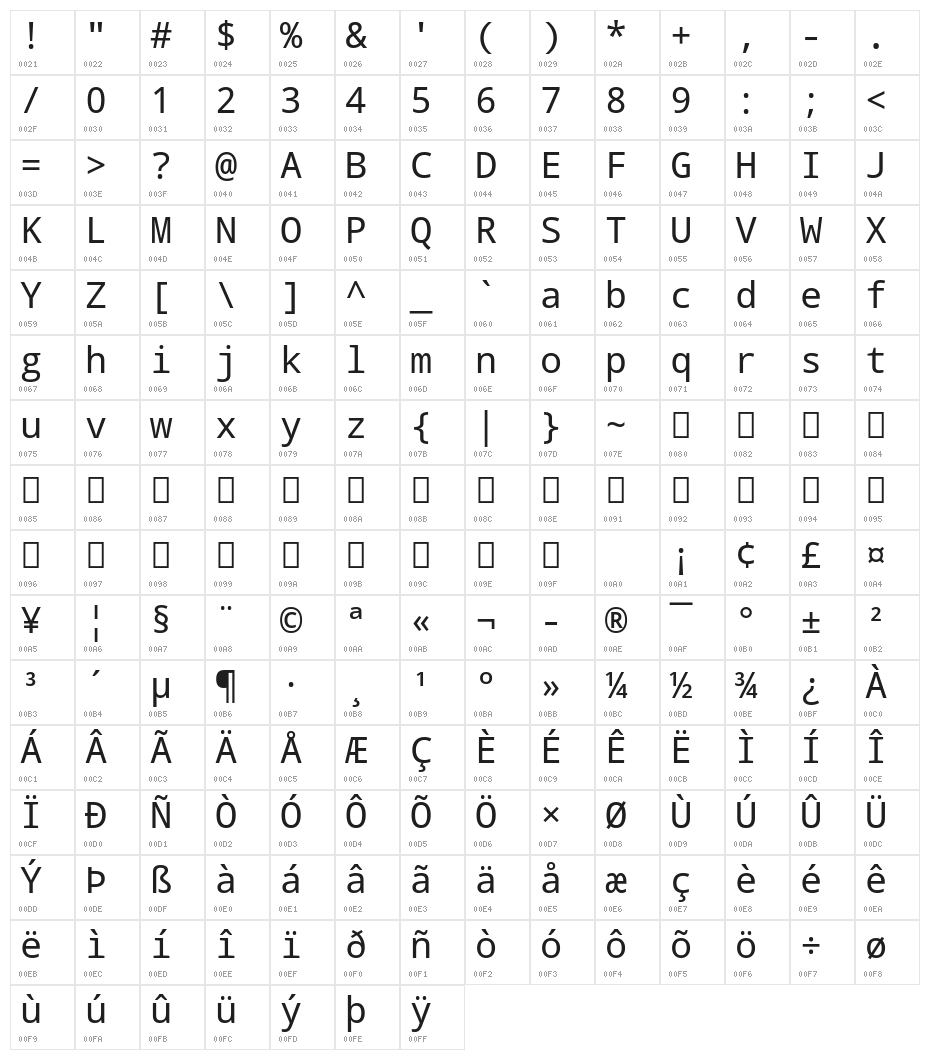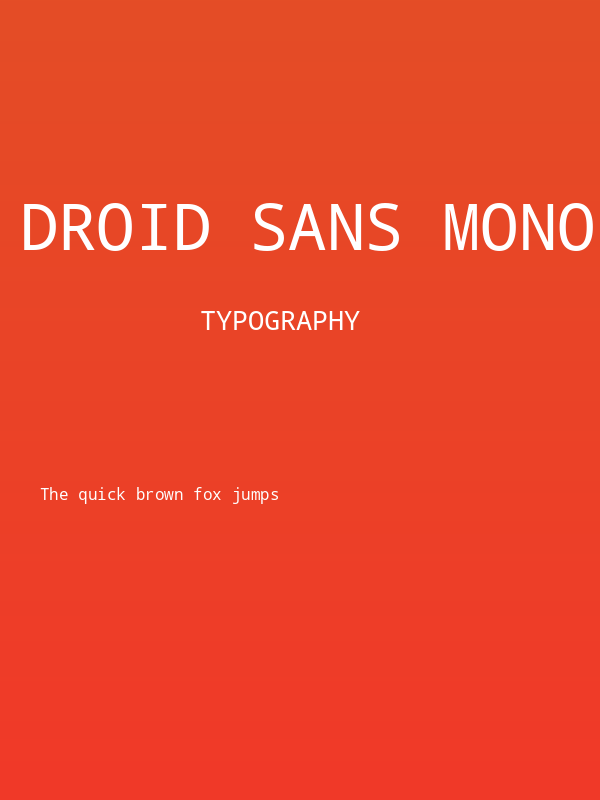
Droid Sans Mono Font
Droid Sans Mono Description
This font features a clean and modern monospaced design, ideal for coding and technical documents. Each character is uniformly spaced, ensuring clarity and readability. The design is straightforward, with minimal embellishments, making it highly legible even at smaller sizes. The uniformity in character width is perfect for aligning text in columns, which is essential for programming environments. Its simplicity and clarity make it a versatile choice for various applications where precision and readability are paramount.
| Use Case | Coding, Technical documents, Data tables |
| Proposed Projects | Suitable for coding environments, technical documentation, and any project requiring precise alignment of text. |